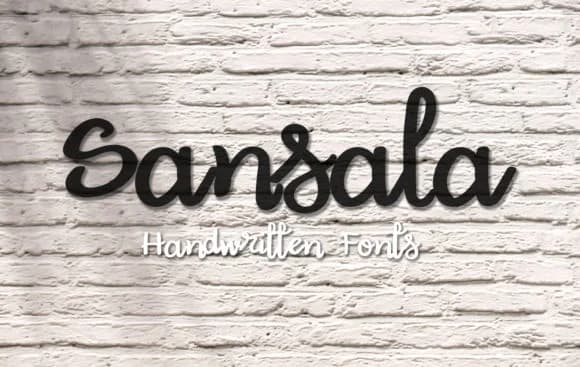
Sansala is a script font by SkyClick that captures the warmth of handwritten letters while maintaining genuine polish. The flowing letterforms strike a rare balance between casual and refined, making text feel personal without appearing unfinished or overwrought. Wedding invitation suites are an obvious home for this script, where formality meets authentic charm. The font also shines on Etsy product labels and boutique skincare packaging for small businesses that want distinction from mass-produced templates. Social media graphics, gift cards, thank you notes, and hand-lettered event signage all gain that artisanal quality from its approachable yet sophisticated character.
Readability stays strong even at smaller sizes, which many script fonts sacrifice to achieve their full visual impact. Designers turn to fonts like this when working on DIY craft projects and scrapbooking layouts where personality matters as much as pure aesthetics. That handmade feel comes through without demanding specialized software or technical skill to apply well.
- Elegant, Flowing
Sansala Font is a script font that shines as a display or heading face. Pair it with a clean sans-serif or serif font for body text β the contrast creates a clear hierarchy while the two styles stay balanced and easy to read.